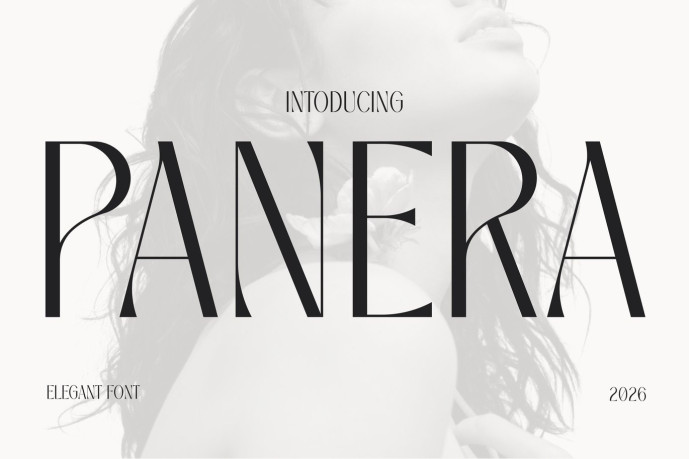
Panera Font
Panera Font is an elegant editorial typeface designed for beauty brands, skincare packaging, and sophisticated visual identities. With its high-contrast strokes, elongated proportions, delicate curves, and refined endings, this typeface creates a graceful presence that feels modern, elegant, and very memorable.
Inspired by fashion magazines, cosmetic campaigns, and contemporary lifestyle brands, Panera combines artistic expression with legibility. Its slender lettering and distinctive contrast lend it a refined appearance that enhances branding, packaging, social media content, editorial layouts, and promotional materials. Whether used for product labels, magazine covers, website headers, or Instagram campaigns, Panera offers a confident visual voice with timeless appeal.
Panera helps designers create a refined, ambitious, and visually distinctive brand image. The elegant structure naturally draws attention to headlines while maintaining a clean and sophisticated aesthetic. Ideal for skincare brands, cosmetic packaging, fashion editorials, wellness products, boutiques, lookbooks, posters, and social media marketing, Panera transforms simple typography into a memorable visual experience. Its graceful character helps brands communicate quality, confidence, and modern style without overwhelming the design.